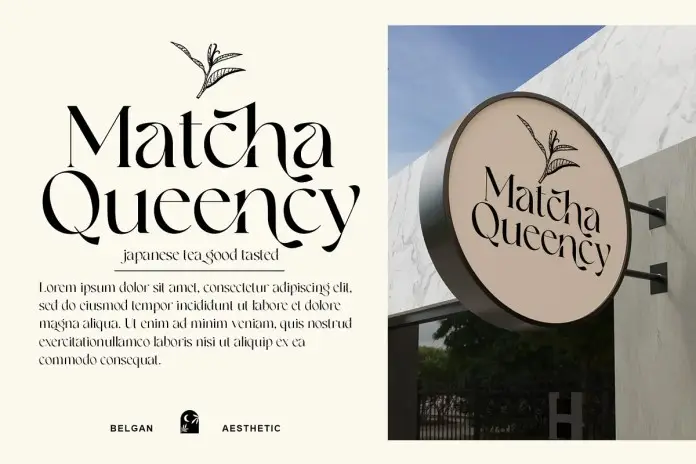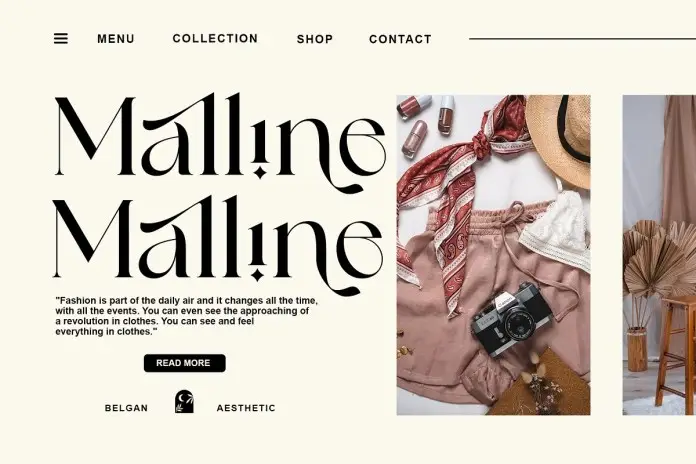
Belgan Aesthetic Serif Font
Introducing the Belgan Aesthetic Serif Font, a beautifully crafted typeface that combines elegance with modern aesthetics. This font features a variety of weights, ensuring versatility for all your design needs.
• Stylish serif design
• Multiple weights for flexibility
• Style: Serif
This font is perfect for branding, logo design, web content, and print materials. Its sophisticated look makes it suitable for both professional and creative projects.